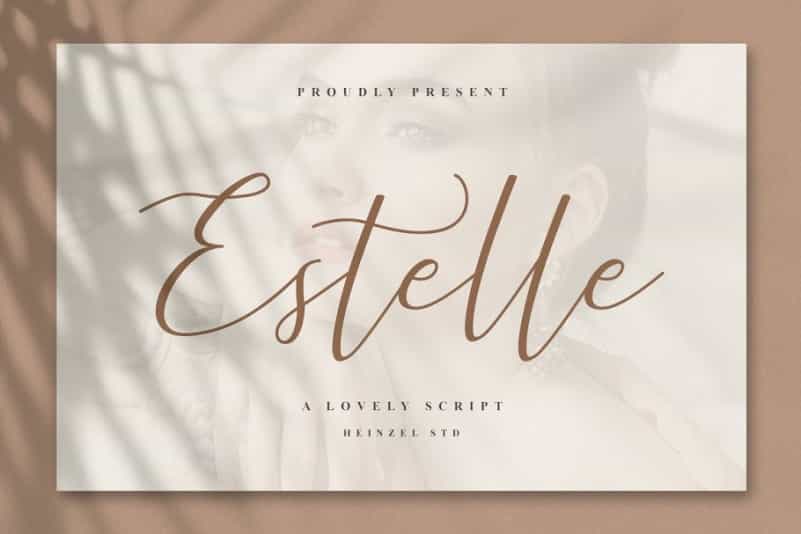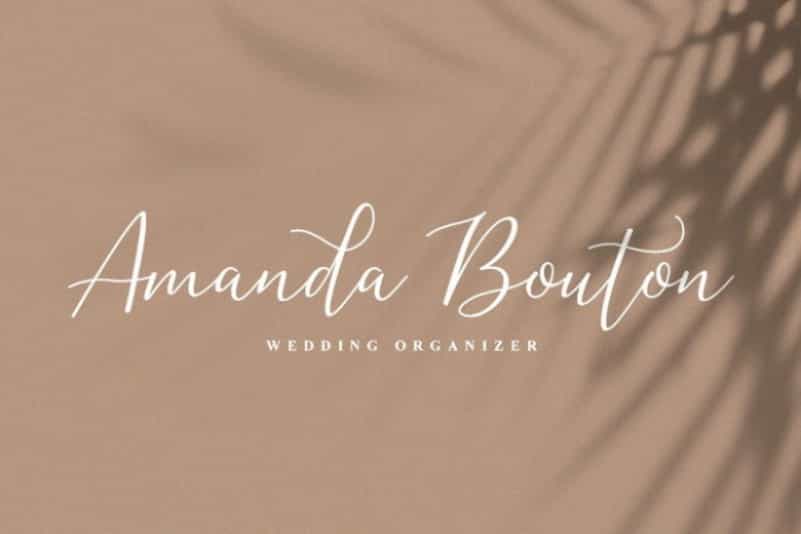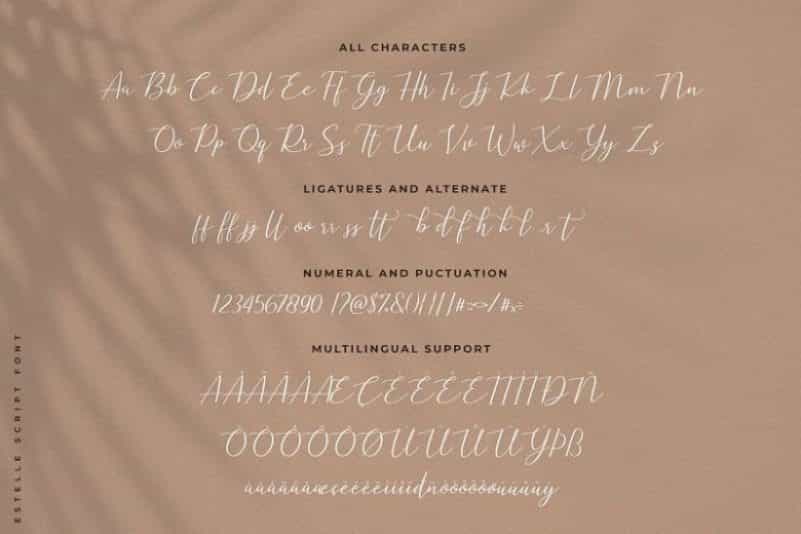
Introducing Estelle. A fresh and contemporary script font that exudes elegance, style and a natural handwritten touch. It’s perfect, for a variety of projects like photography, social media posts, logos, branding, invitations, product designs, labels, stationery, weddings, product packaging, special events. Anything that could benefit from a handwriting feel.